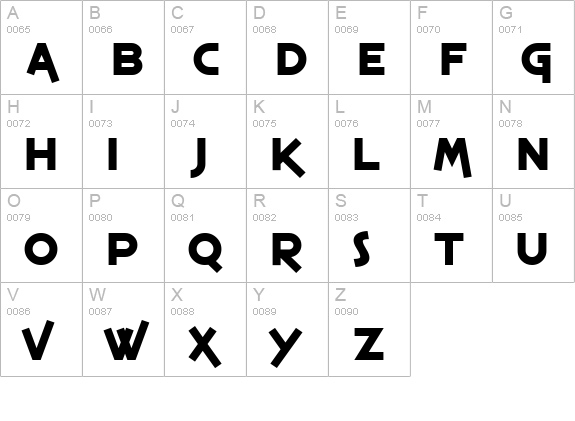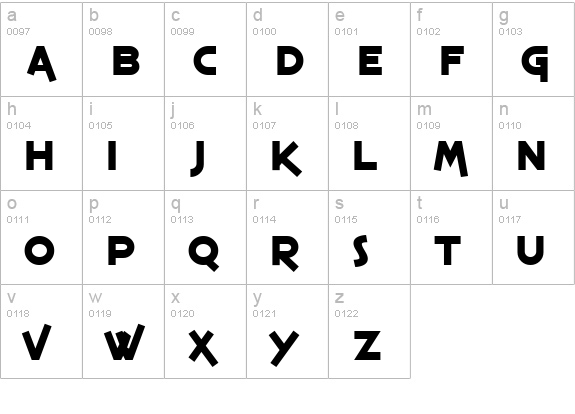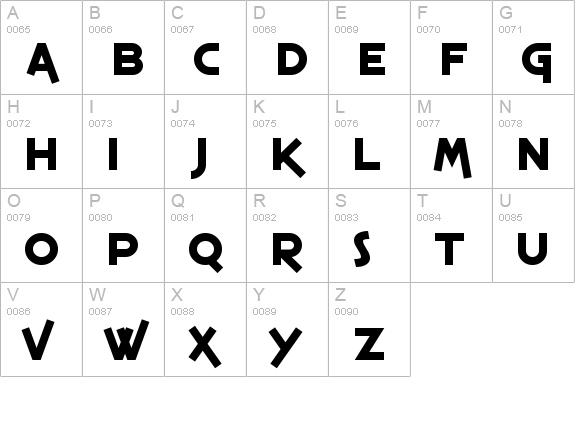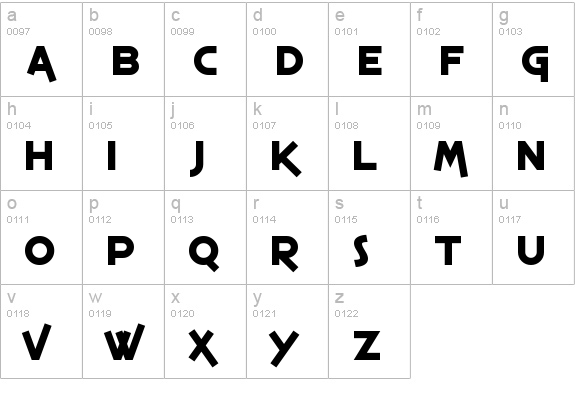
SF Espresso Shack Bold Font Details
SF Espresso Shack Bold is a strong, high-contrast variant in the SF typeface family \xE2\x80\x94 well suited to headlines, attention-grabbing titles, and strong calls-to-action.
Introducing SF Espresso Shack Bold font, the epitome of boldness and sophistication. This captivating typeface is designed to make a statement and leave a lasting impression. With its strong and commanding presence, SF Espresso Shack Bold demands attention and amplifies the impact of any design project. Crafted with meticulous attention to detail, this typeface boasts clean lines and sharp edges, ensuring legibility and readability even at smaller sizes. Its bold strokes and robust structure create a sense of power and confidence, making it the perfect choice for headlines, titles, and branding materials. The versatility of SF Espresso Shack Bold font knows no bounds. Whether you're designing a modern website, a stylish magazine layout, or a striking poster, this font adapts effortlessly to any creative endeavor. Its timeless appeal exudes elegance and professionalism, while maintaining a contemporary edge that keeps it fresh and relevant. What sets SF Espresso Shack Bold apart is its commitment to accessibility. We believe that great design should be freely available to all, and that's why we are thrilled to offer this remarkable font as a free download at FontsMarket.com. Now, you can effortlessly enhance your projects with this exceptional typeface, without any barriers or limitations. Embrace the boldness, embrace the sophistication, and unleash your creativity with SF Espresso Shack Bold font. Elevate your designs, make a lasting impact, and captivate your audience with this remarkable typeface. Download it for free today at FontsMarket.com, and let your imagination run wild.